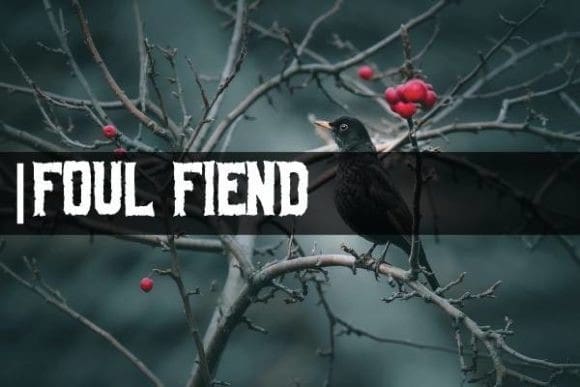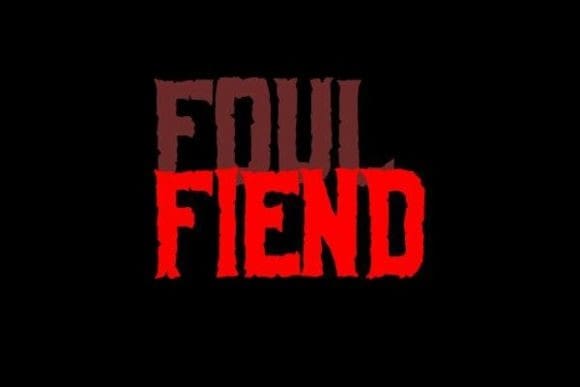
Foul Fiend is a bold and spooky display font with straight lines, ideal for a title or a header. The characters appear to have signs of shredding and the space in between letters is small.
| Classification: | Decorative Fonts, Display Fonts |